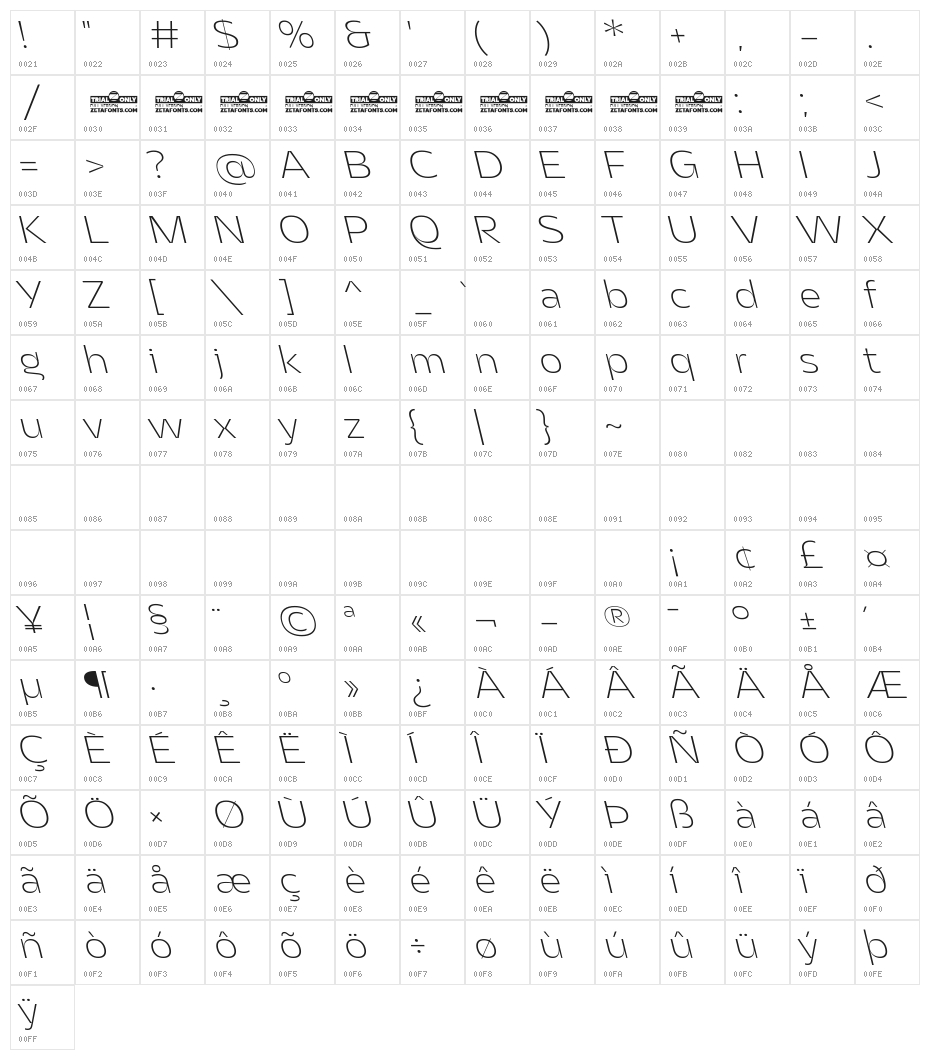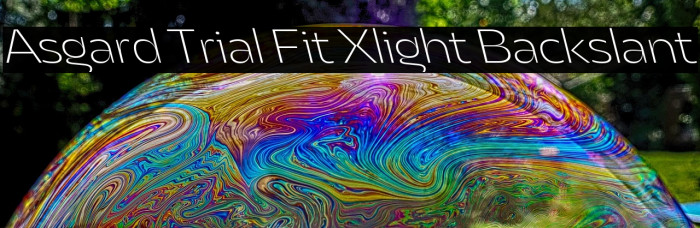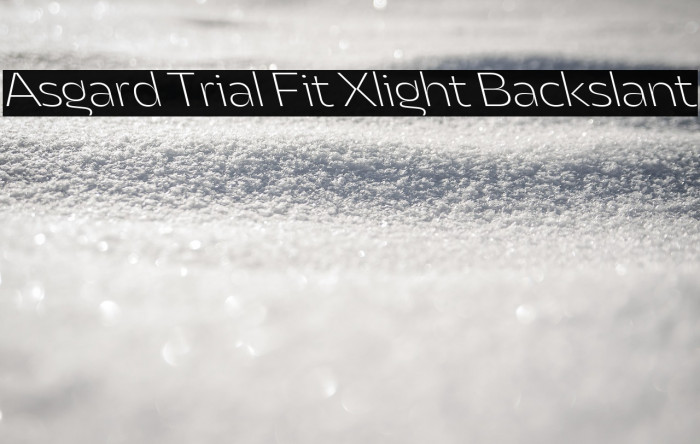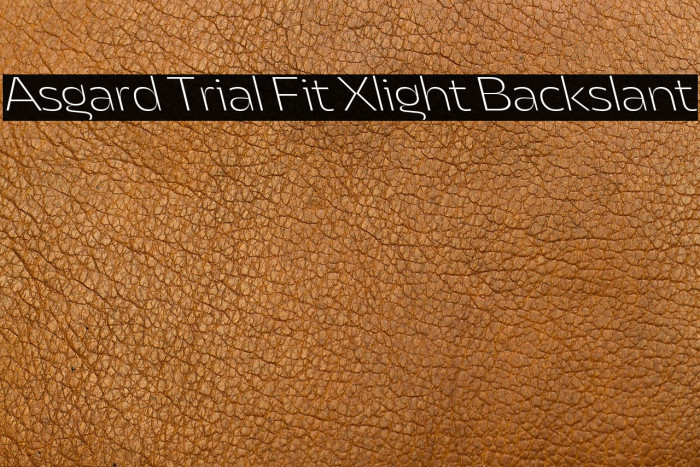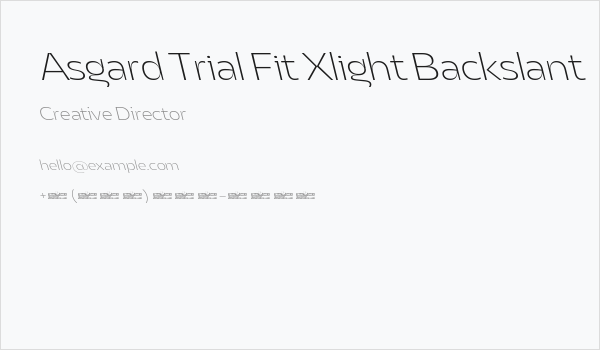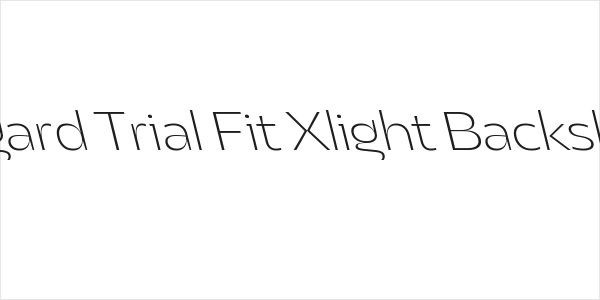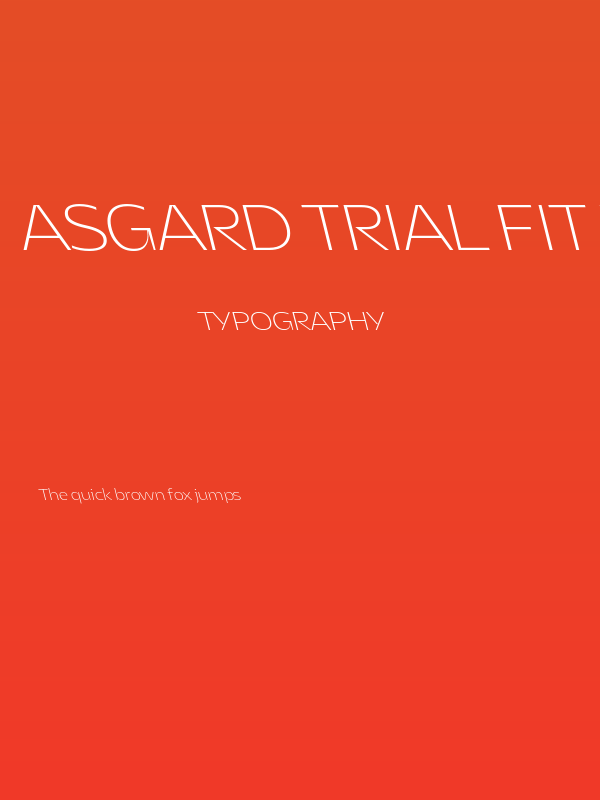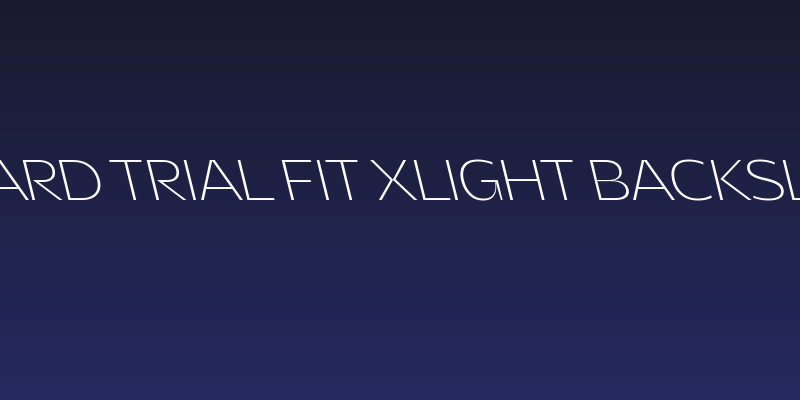
Asgard Trial Fit Xlight Backslant Font
Asgard Trial Fit Xlight Backslant Description
This typeface features a sleek and modern design with a distinct backslant, giving it a unique and dynamic appearance. The characters are thin and elongated, contributing to an elegant and sophisticated look. The uppercase and lowercase letters maintain a consistent style, with smooth curves and clean lines. The numerals and special characters are designed to match the overall aesthetic, ensuring a cohesive appearance across all text. This font's minimalist approach makes it suitable for contemporary design projects, where clarity and style are paramount.
| Proposed Projects | Ideal for branding, editorial design, and modern web design projects. |